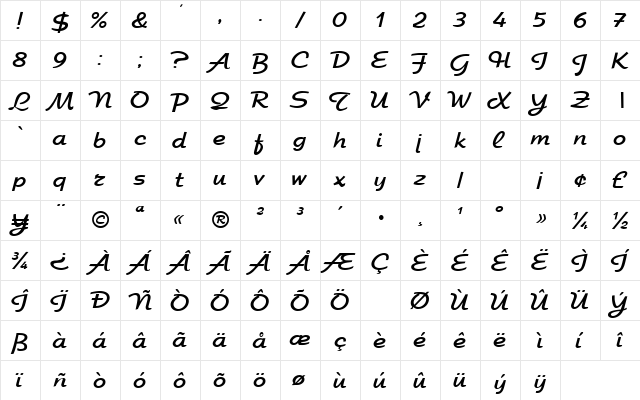
ChromaSSK Regular Font Preview
ChromaSSK Regular
ChromaSSK Regular Font Details
Design Context for ChromaSSK Typeface
ChromaSSK is a composed and adaptable typeface that performs quietly and consistently across a wide range of design contexts.